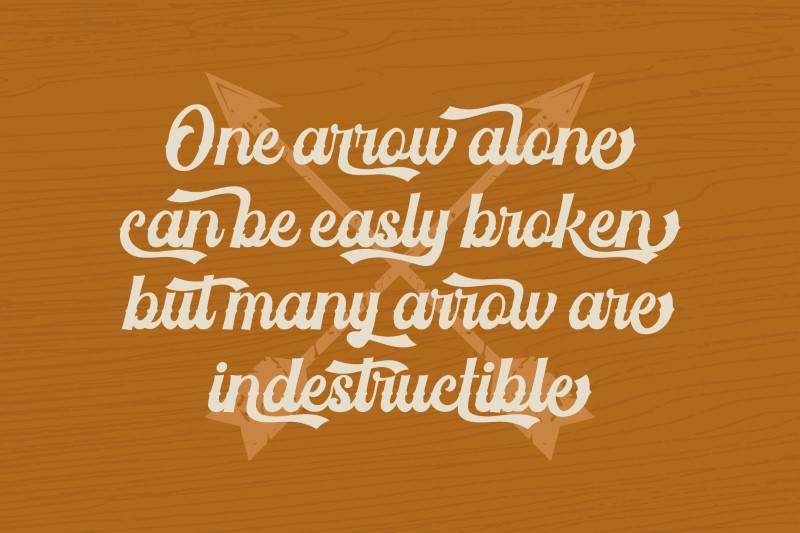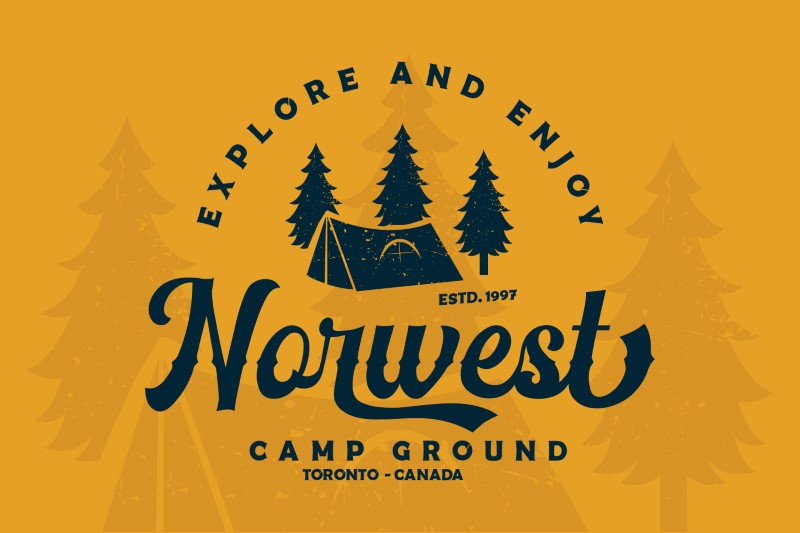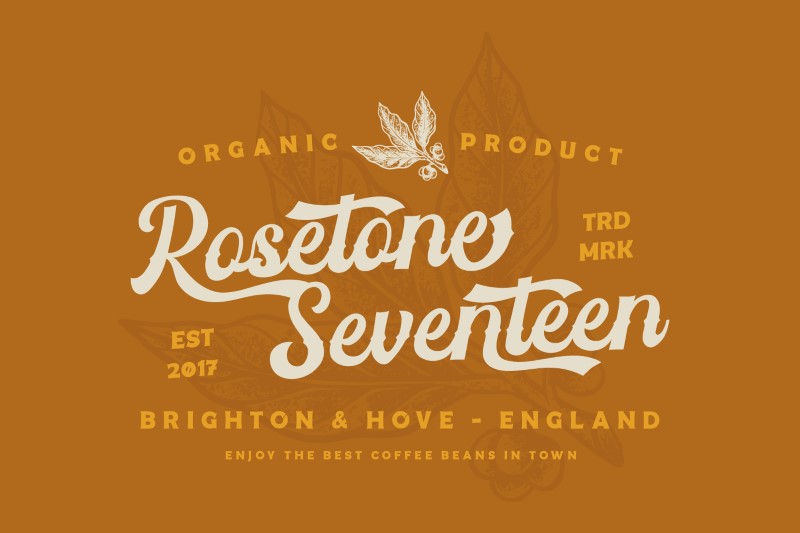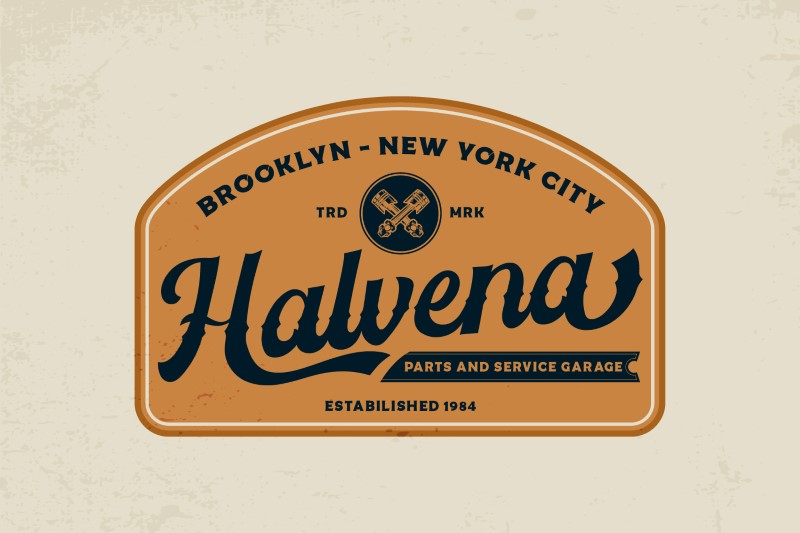
Are you ready to enhance your branding? Are you looking for a statement font that exudes prominence, style, and adventure? The thing is you only need to change one element to engage your clients. Please welcome Vintage Feeling.
It is a script font beautifully handcrafted to make your guests excited and to elevate your projects! Every stroke, and curve was created to entice happiness and elegance. This artistic style typeface looks very interesting for loads of different projects and promotions. A great all-in-one package for your logos, book covers, posters, t-shirts, brandings, and advertisement needs.
Features include:
- Alternates
- Stylish Sets